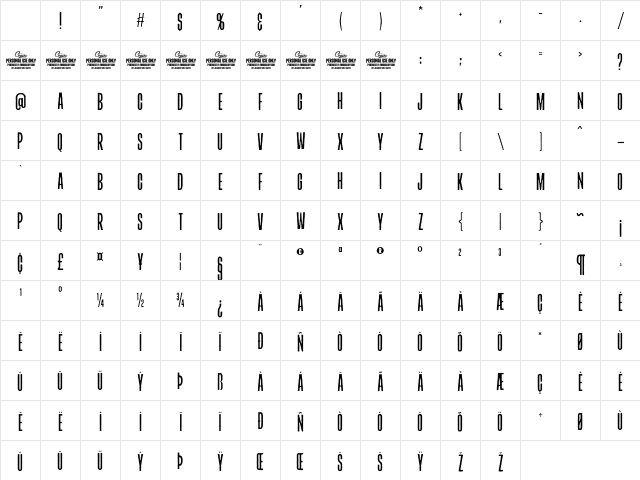
Complete TCHeadlinerPrint-Cond Regular glyph index. Displaying only characters natively supported by TCHeadlinerPrint-Cond Regular font.
TCHeadlinerPrint-Cond is a composed and adaptable typeface that performs quietly and consistently across a wide range of design contexts. Its narrow stance lets it pack a punch even in space-constrained designs.